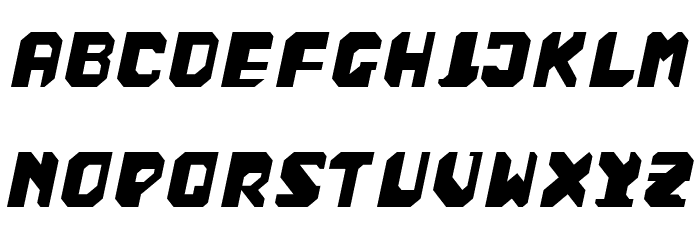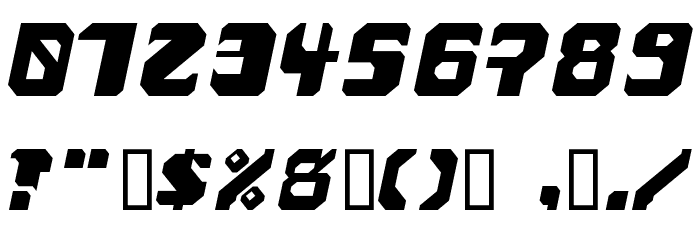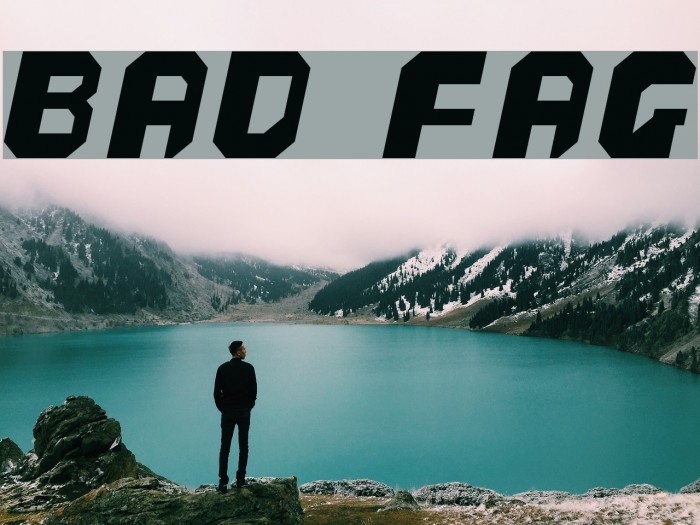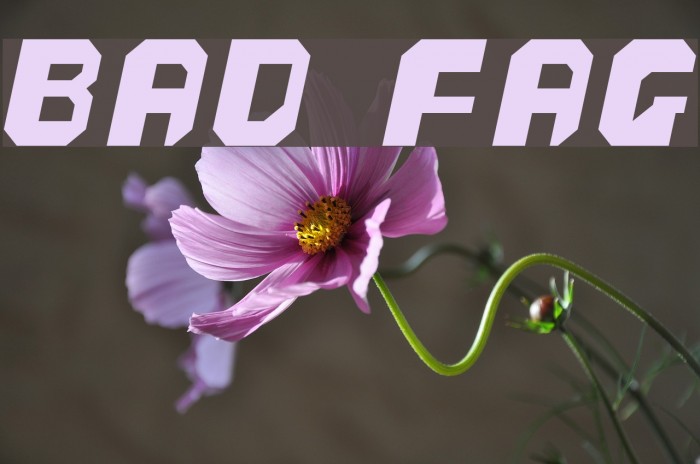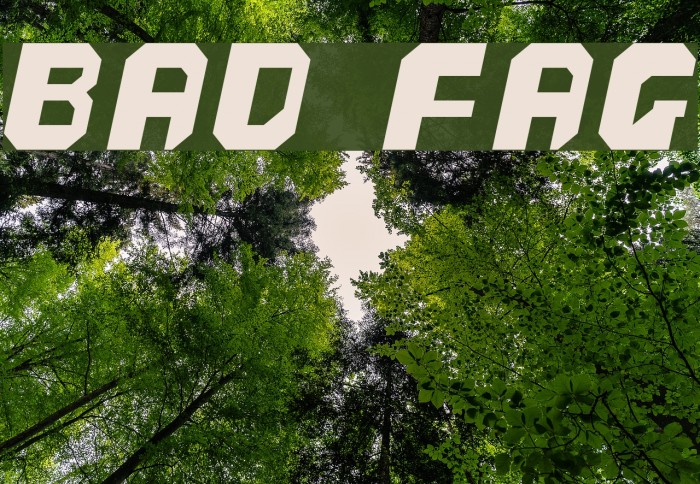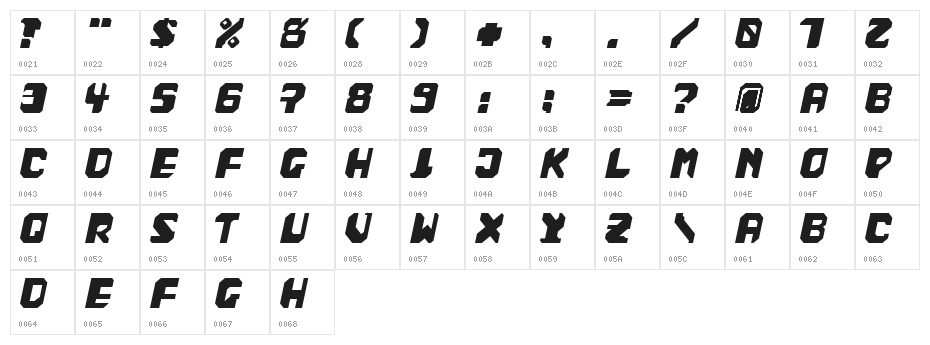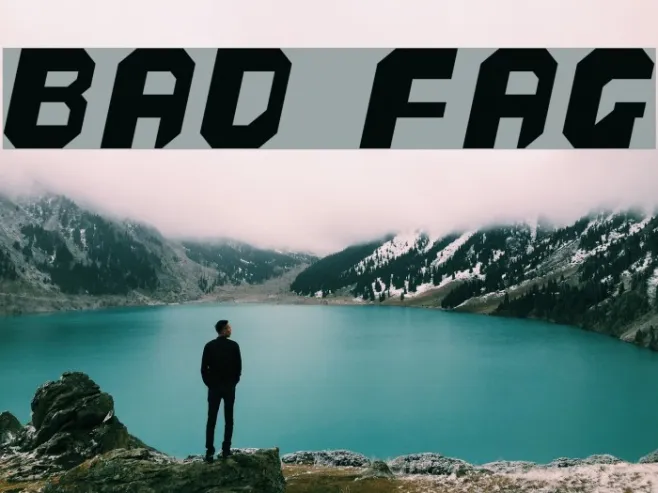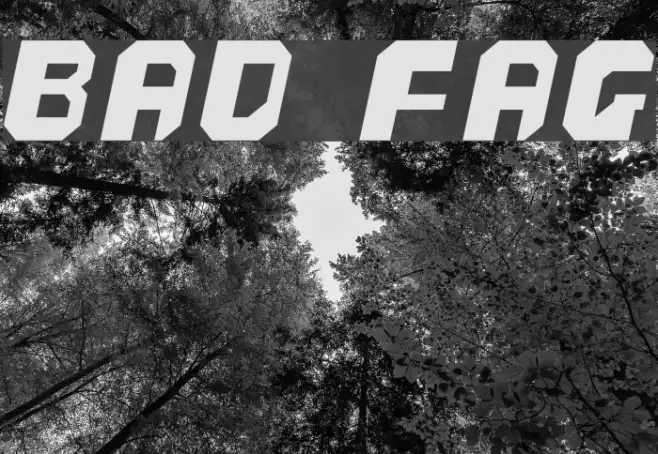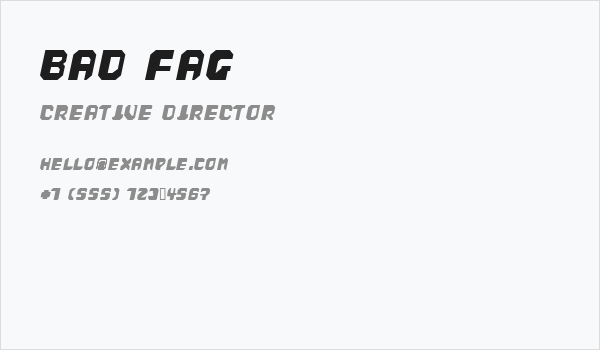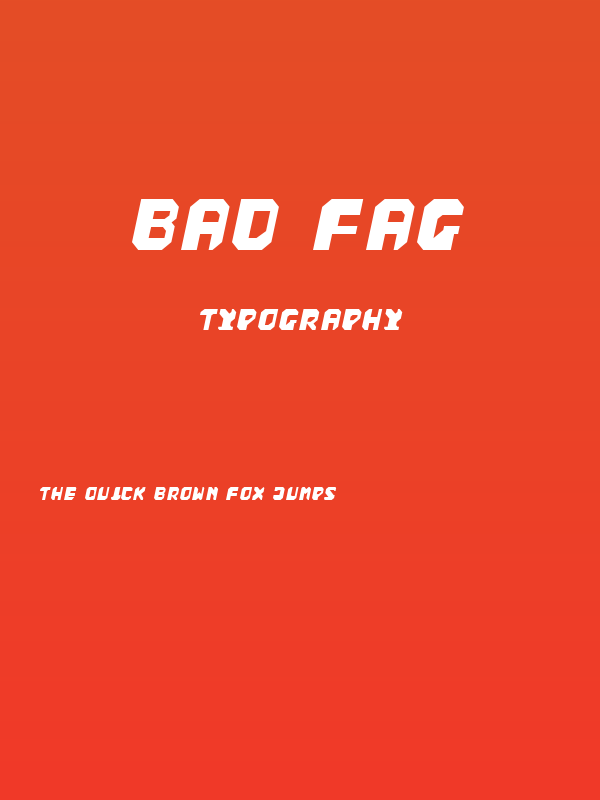
bad fag Font
This font features a bold, angular design with a futuristic and dynamic appearance. The characters are heavily stylized with sharp edges and a slight slant, giving them a sense of motion and energy. The uppercase and lowercase letters maintain a consistent geometric structure, while the numbers and special characters complement the overall aesthetic. The font's bold weight and unique style make it stand out, ideal for projects that require a strong visual impact.
- Proposed Projects: Ideal for sci-fi themed designs, video game titles, posters, and branding that requires a modern and edgy look.